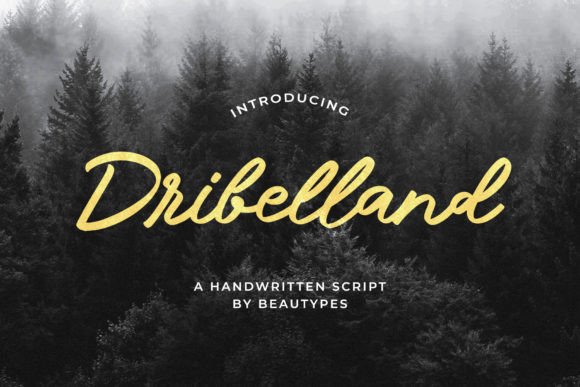
Introducing the enchanting Dribelland Font – a captivating masterpiece that will add an irresistible charm to your creative endeavors. Its mesmerizing handwritten style seamlessly blends elegance and artistry, making it the ideal choice for crafting unforgettable logos, stationery, posters, apparel, branding, advertisements, product packaging, labels, wedding invitations, and more.
Imagine the impact your designs will have when adorned with the graceful curves and effortless charm of Dribelland. Its versatility knows no bounds, empowering you to create a wide range of designs that will capture hearts and inspire minds.
With Dribelland, you'll embark on a journey of creativity where your imagination is the only limit. Let its enchanting allure enhance your designs and leave a lasting impression on all who encounter them.
Indulge in the beauty of Dribelland and elevate your creative projects to extraordinary heights. Its elegance will captivate, its charm will entice, and its versatility will empower you to craft designs that resonate with your audience.